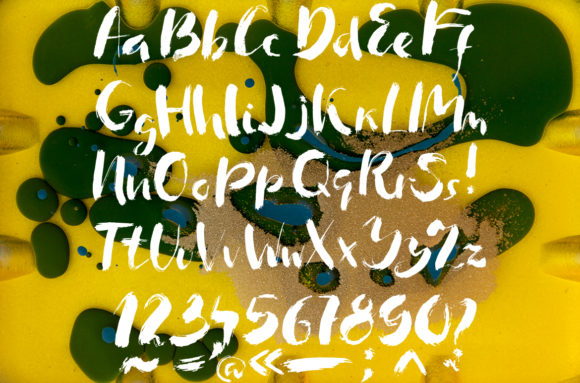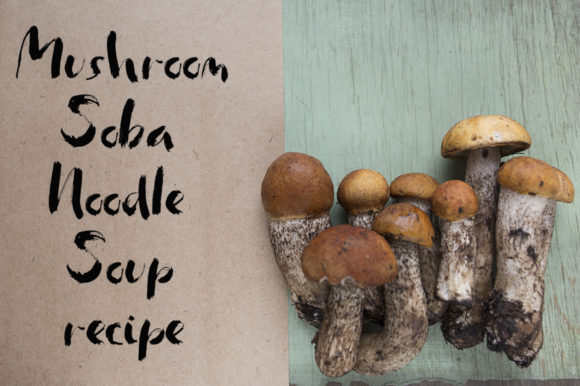
The Ultimate Guide to Dry Brush Font: Elevate Your Designs with a Cool and Unique Brushed Handwritten Font
I’ll never forget the time I was working on a project for a client who wanted a font that would make their brand stand out. I had spent hours browsing through font libraries, but nothing seemed quite right. That was until I stumbled upon the Dry Brush font. It was love at first sight! ✨ The unique, hand-brushed texture and cool, casual vibe instantly elevated my design, and my client was thrilled with the result.
An Honest Review of Dry Brush Font
What I Love About Dry Brush Font
- ✨ Unique, hand-brushed texture that adds a touch of personality to any design
- ✅ Highly versatile and can be used for a wide range of projects, from branding and packaging to social media graphics and more
- 💫 Works beautifully in both digital and print formats
- 🎨 Can be paired with a variety of other fonts and design elements to create a truly custom look
While Dry Brush font is an amazing addition to any design library, there are a few things to keep in mind. 🤔 For example, the font can be a bit tricky to read at very small sizes, so it’s best to use it for headlines or titles rather than body text. ⚠️ Additionally, some of the more intricate details may not come through as clearly in certain formats or on certain devices.
Exploring OpenType Features, Glyphs, and Stylistic Alternates
Dry Brush font comes with a range of OpenType features, glyphs, and stylistic alternates that can help you take your design to the next level. Here are a few tips for using these features:
- Use stylistic alternates to create a more customized look
- Experiment with different glyphs to add visual interest
- Take advantage of OpenType features like ligatures and swashes to add personality to your text
The Backstory of Dry Brush Font
Dry Brush font was designed by a team of creatives who wanted to create a font that would capture the essence of hand-brushed lettering. The designers drew inspiration from a range of sources, including vintage signs, street art, and hand-painted lettering. The result is a font that is both unique and versatile, with a cool, casual vibe that is perfect for a wide range of design projects.
Q: What is Dry Brush font?
A: Dry Brush font is a cool and unique brushed handwritten font that is perfect for adding a touch of personality to any design.